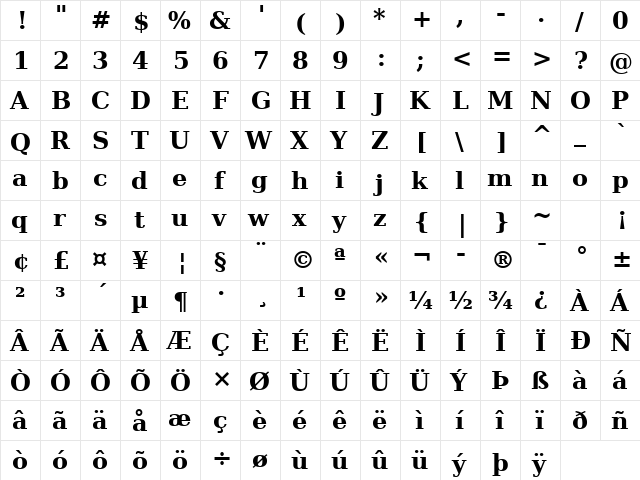
Bitstream Vera Serif Bold
| Foundry | Bitstream Inc. |
Design Context for Bitstream Vera Serif Typeface
Bitstream Vera Serif brings classic typographic sensibility to the table — its serifs and measured letterforms reflect centuries of print heritage. The heavy weight commands attention and anchors typographic hierarchies.